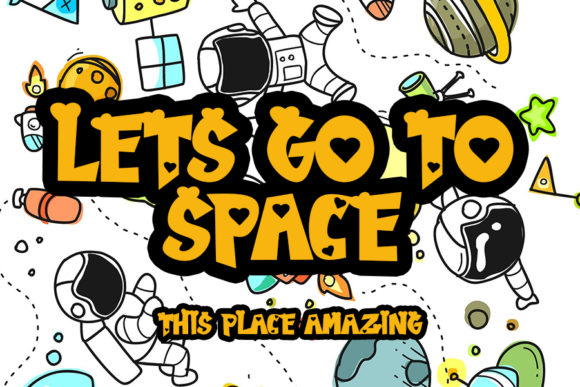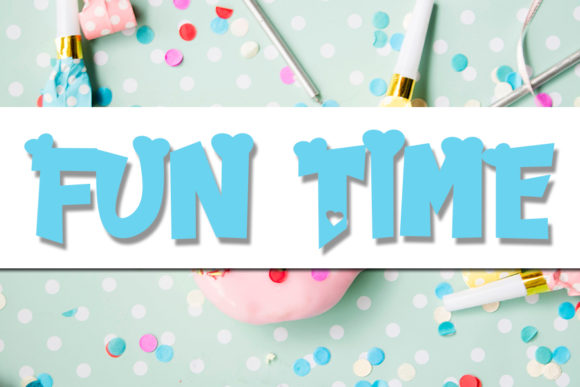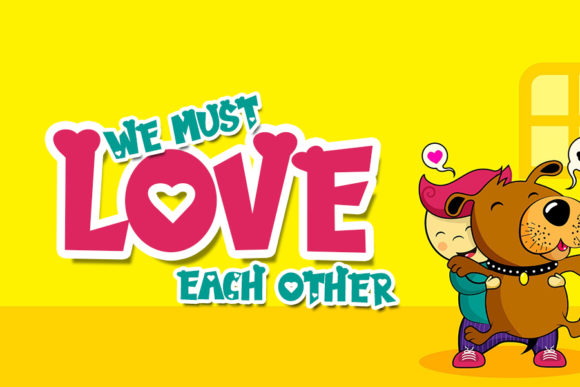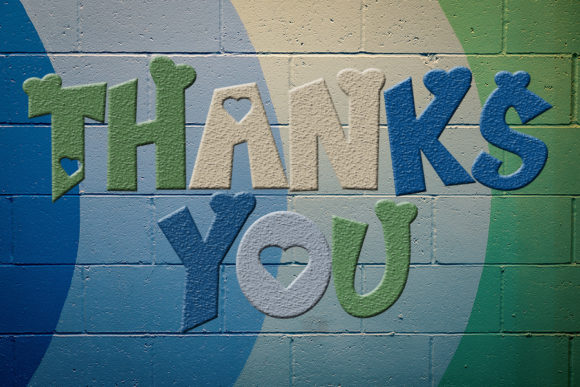
Introduction to Love Monster Font
Have you ever stared at a blank design canvas, eager to bring a new creative project to life? That’s where the perfect font can make all the difference. For designers seeking a high-quality, eye-catching typography solution, the Love Monster Font is an excellent choice. This friendly display font is designed to capture attention and add a touch of personality to any design.
What sets the Love Monster Font apart is its versatility. Whether you’re working on a branding project, creating a social media graphic, or designing a wedding invitation, this font is sure to impress. Its bold and playful style makes it perfect for designers who want to add a bit of whimsy to their designs. And the best part? It’s available for free download, complete with a transparent background, making it easy to incorporate into any design project.
Key Features of Love Monster Font
- High-quality design resource ideal for creative projects, including children’s books, greeting cards, and more.
- Unique, hand-drawn style with bold lines and playful characters, making it perfect for adding a touch of whimsy to any design.
Honest Review: Love Monster Font
I recently came across the Love Monster Font while working on a creative project, and I must say it’s been a great addition to my design resource library. The font is perfect for those looking to add a playful and whimsical touch to their designs.
What works well: ✨ The Love Monster Font offers a high-quality, hand-drawn design that’s perfect for illustrations, quotes, and other creative projects. It’s available for free download, making it an excellent choice for designers on a budget. I also appreciate the transparent background, which makes it easy to integrate with other design elements.
- Perfect for illustrations and quotes
- High-quality, hand-drawn design
However, I do have a few minor complaints: ⚠️ The font is not ideal for large blocks of text, as it can become difficult to read. Additionally, some of the characters may not be as detailed as others, which can make it tricky to work with.
Overall, I’m impressed with the Love Monster Font, and I would definitely recommend it to designers looking to add a playful touch to their designs. With a little creativity, you can use it to create truly unique and engaging designs.
Common Use Cases for Love Monster Font
The Love Monster Font is ideal for social media graphics, blog posts, and marketing materials. Use it to create eye-catching headlines, quotes, and titles that grab attention.